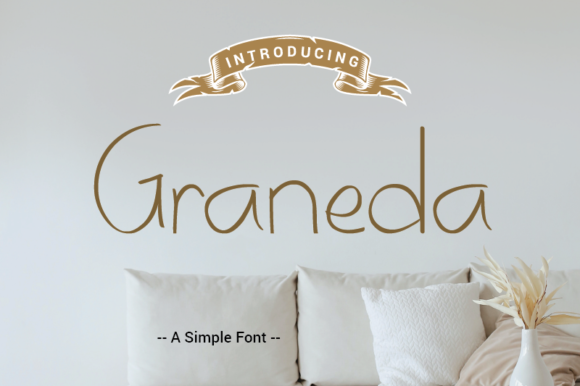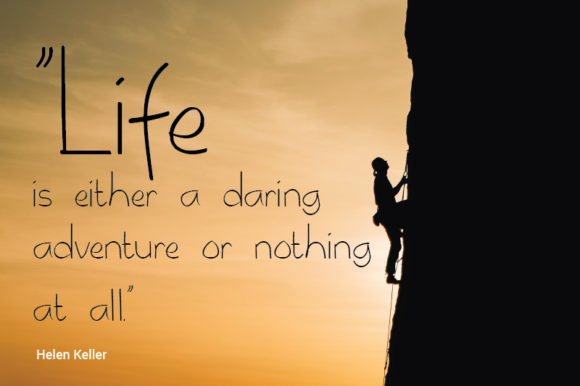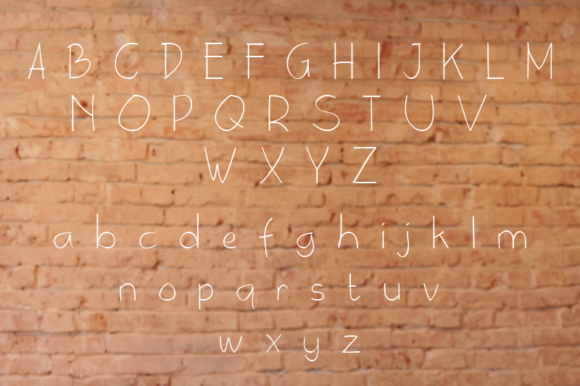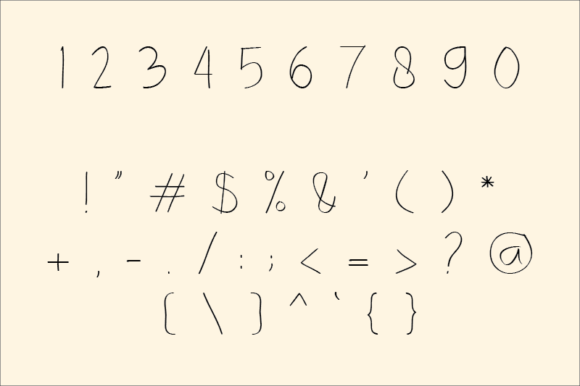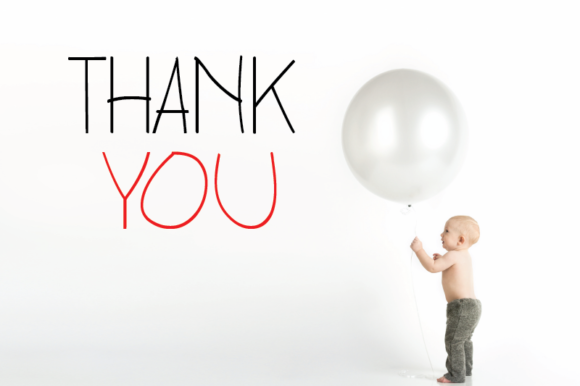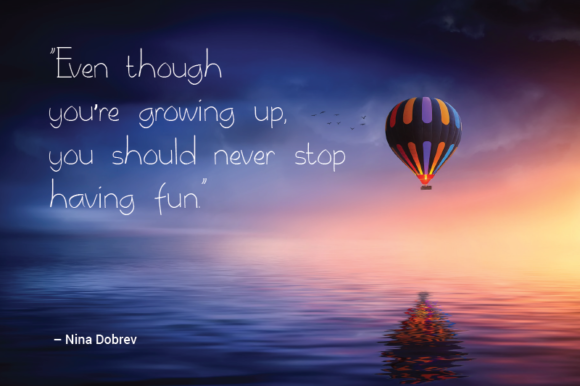
Graneda Font
About Graneda Font
Graneda is a delicate and relaxed handwritten font. Fall in love with its simplicity and use it to create gorgeous wedding invitations, beautiful stationary art, eye-catching social media posts, and much more! Graneda is masterfully designed to become a true favorite.